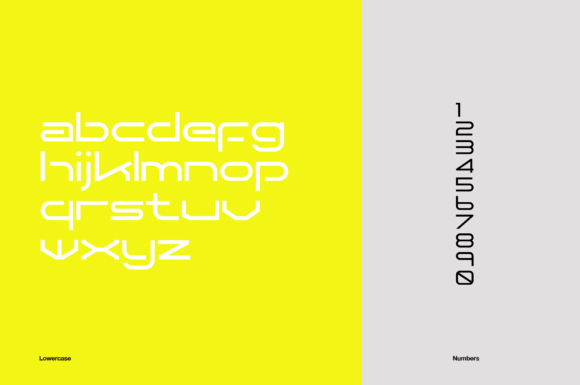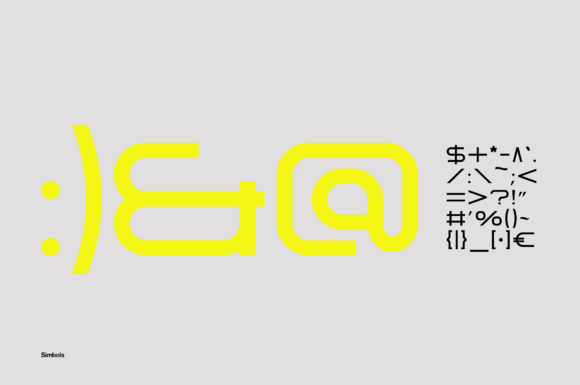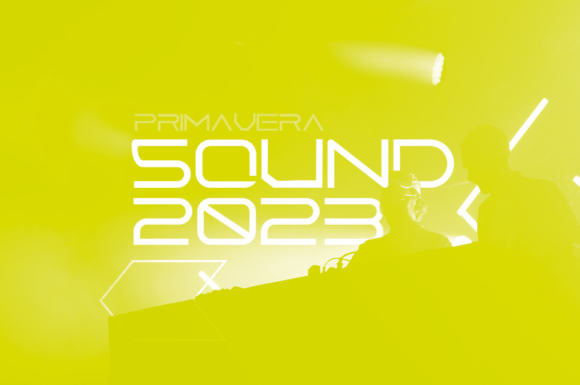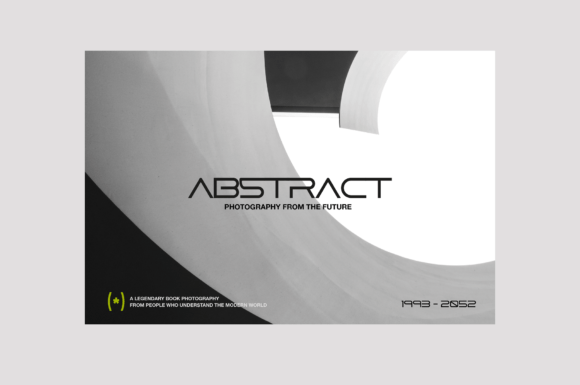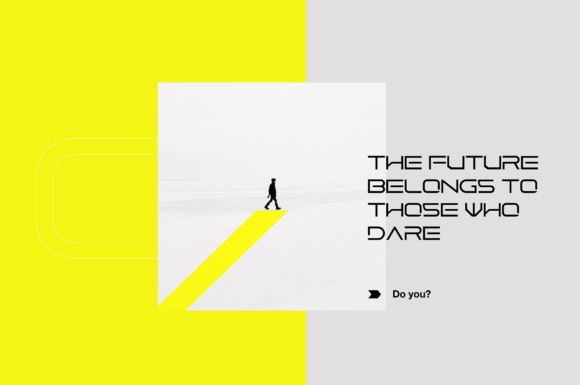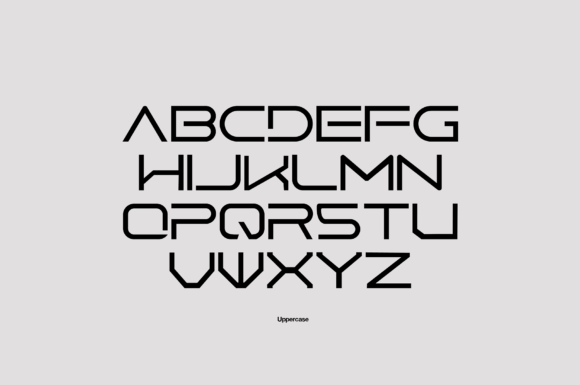
Introduction to Obsidian Font
As a designer, you know that sometimes the perfect font can be the difference between a mediocre design and a showstopper. For me, that moment came when I stumbled upon the Obsidian Font – a stunning sci-fi sans display font that perfectly captured the futuristic vibe I was going for in a recent project. With its clean lines, minimal aesthetic, and high-quality design, the Obsidian Font has quickly become my go-to choice for any creative project that requires a touch of futurism.
Whether you’re working on a branding project, creating a poster for a movie, or simply need a font for your next social media campaign, the Obsidian Font is an absolute workhorse that’s ready to be used out of the box. With its transparent background and versatility, it’s no wonder that designers are flocking to this incredible design resource.
Key Features of Obsidian Font
- High-quality font with a transparent background, ideal for creative projects that require a sleek and modern look.
- Unique characteristics include a clean and minimalist design, making it perfect for use in logos, branding, and typography-based designs.
- Perfect for use in a variety of creative projects, from digital art to print design, and everything in between.
Honest Review: Obsidian Font
I recently stumbled upon the Obsidian Font and was immediately drawn to its sleek, modern design. The transparent background makes it a great addition to any creative project where you want your typography to take center stage.
Here are some things that work well for the Obsidian Font: ✨
- High quality design that’s perfect for creating a sophisticated look
- Great for use in both digital and print design projects
- Some users may find the font to be too minimalist, lacking in character
- The transparent background can sometimes make the text difficult to read, especially on busy backgrounds
Overall, I’m impressed with the Obsidian Font and think it’s a great addition to any designer’s toolkit. With a little creativity and experimentation, it can add a unique touch to even the most mundane design projects.
Experiment with different font sizes and styles to add depth and visual interest to your design. Use the Obsidian Font in conjunction with other design resources, such as graphics and images, to create a cohesive and engaging visual identity.
The Obsidian Font is a versatile design resource that can be used in a variety of creative projects, including logos, brochures, and social media graphics. Its high quality and transparent background make it a popular choice for designers looking to add a touch of sophistication to their designs.